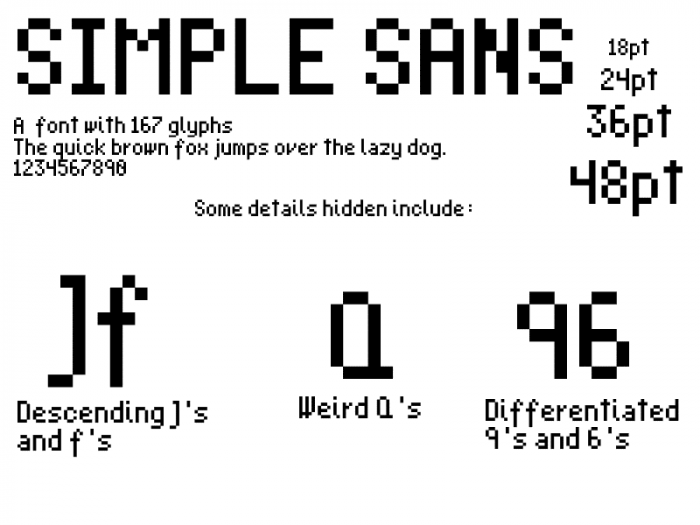
simple sans is... well... a simple 7x4(ish) sans-serif pixel font. but not really. there are a lot of funky details hding in the glyphs. try to catch them all!
this is currently the most-glyphed font i ever have which is not a clone of some other font.
this font is gonna have 1000+ glyphs very very soon!
this experiment is now abandoned. i will work on a new unicode font soon.
UPDATE: did most of the uppercase accents.
UPDATE: did lowercase accents, squished Æ, added ligatures, and added © (copyright symbol), ® (registered symbol) & ™ (trademark symbol).
more symbols (or accented letters) and more multilingual letters i think...?
this font also had an update. i kerned the punctuation and added more multilingual symbols.